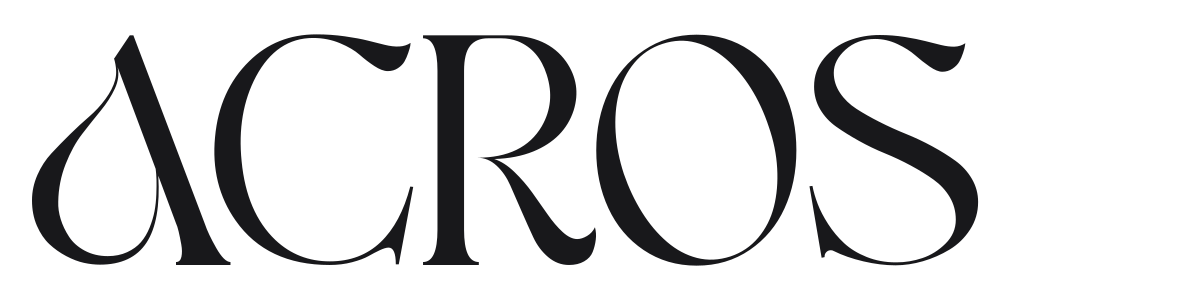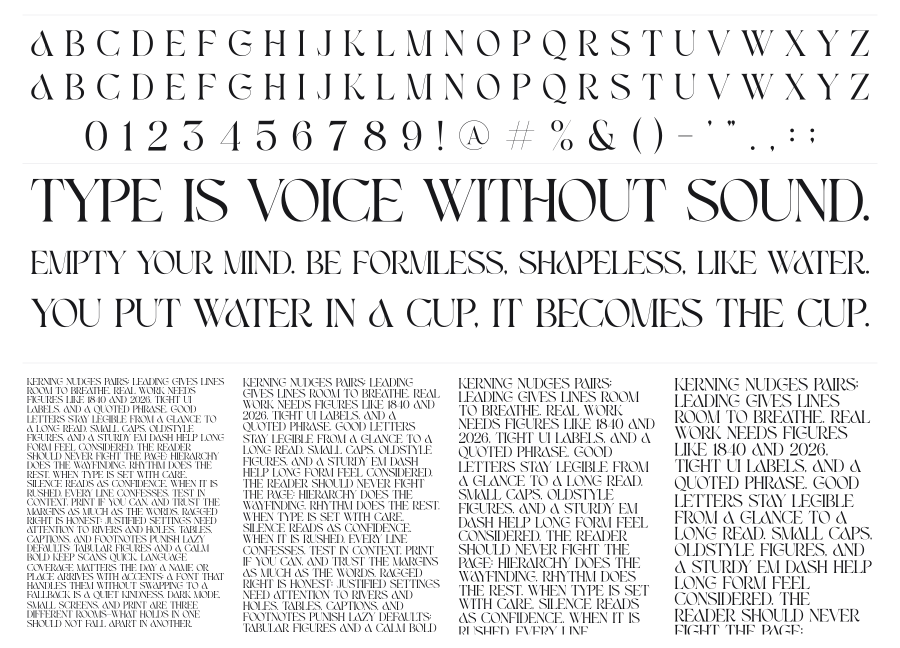
Acros
Acros is a high-contrast display serif with dramatic thick-thin stroke variation and fine, sharp serifs drawn in the Didone tradition. Stylized notches and cuts at stroke junctions give it a distinctive editorial personality that sits comfortably between Art Deco geometry and contemporary fashion typography. It commands attention at large sizes.